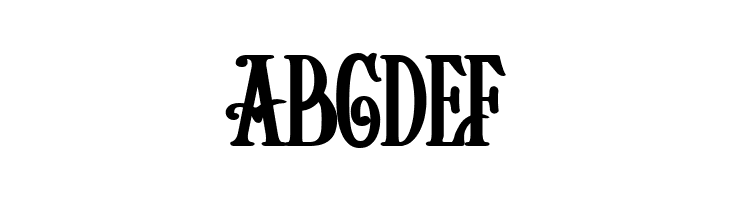
Hindenburg Condensed Shadow Regular Font
- Font: Hindenburg Condensed Shadow Regular
A bold, decorative font with whimsical serifs and artistic flair.